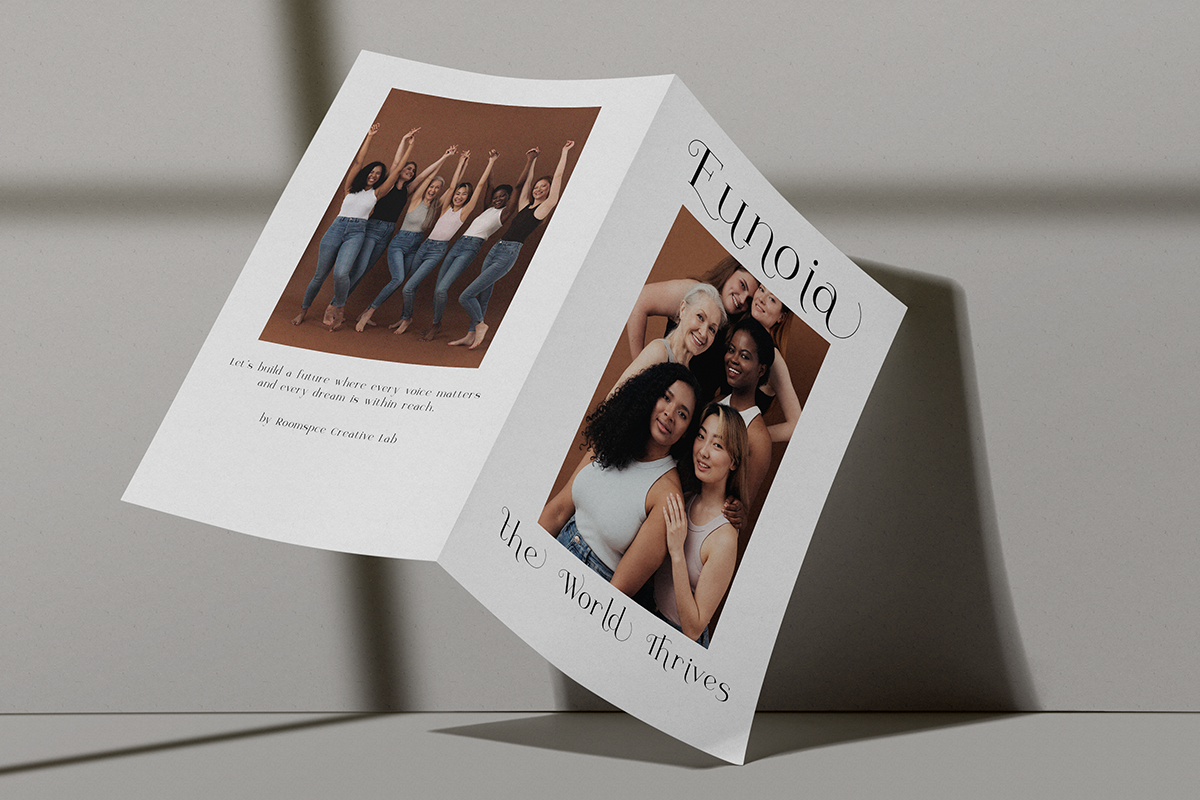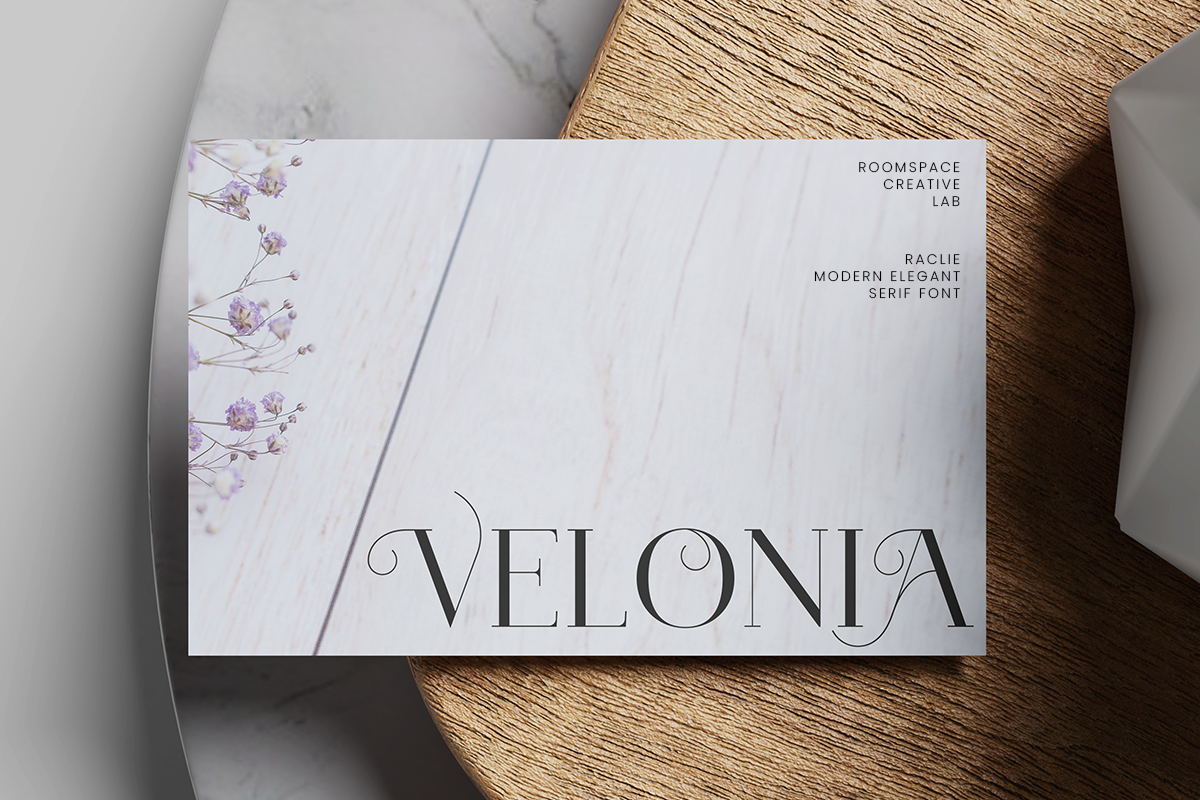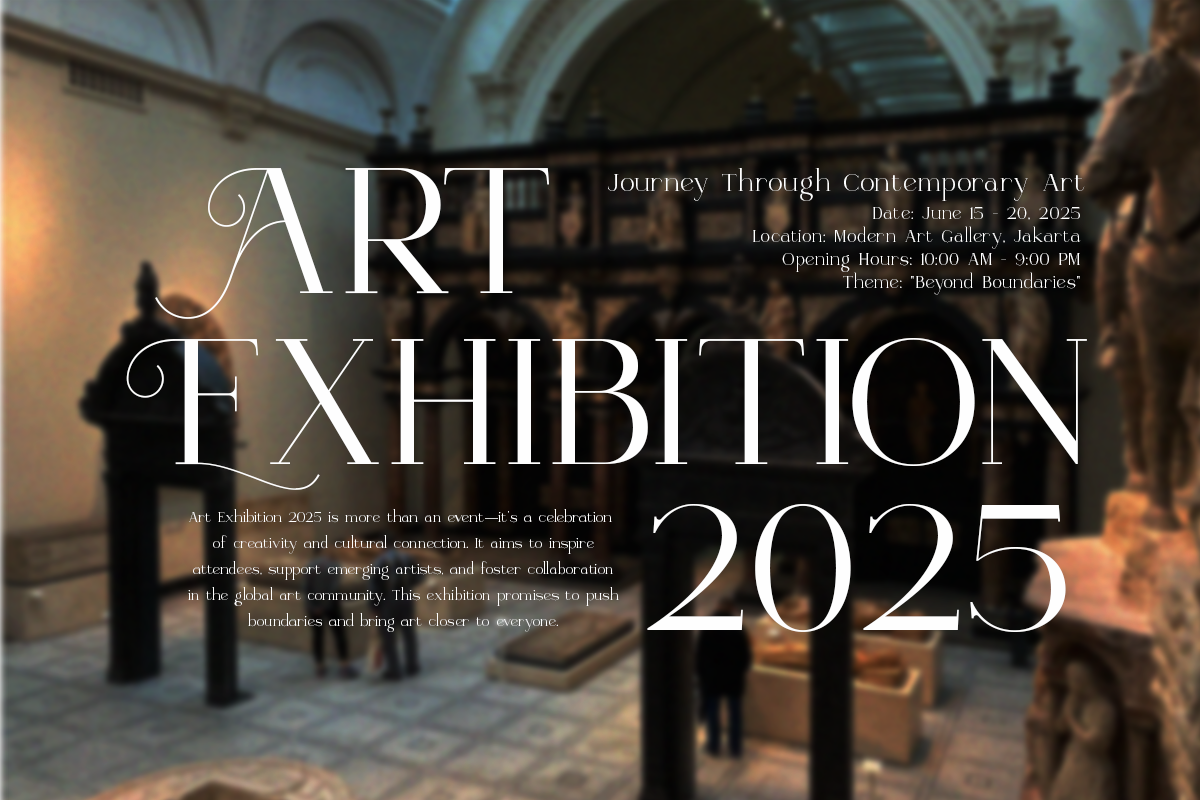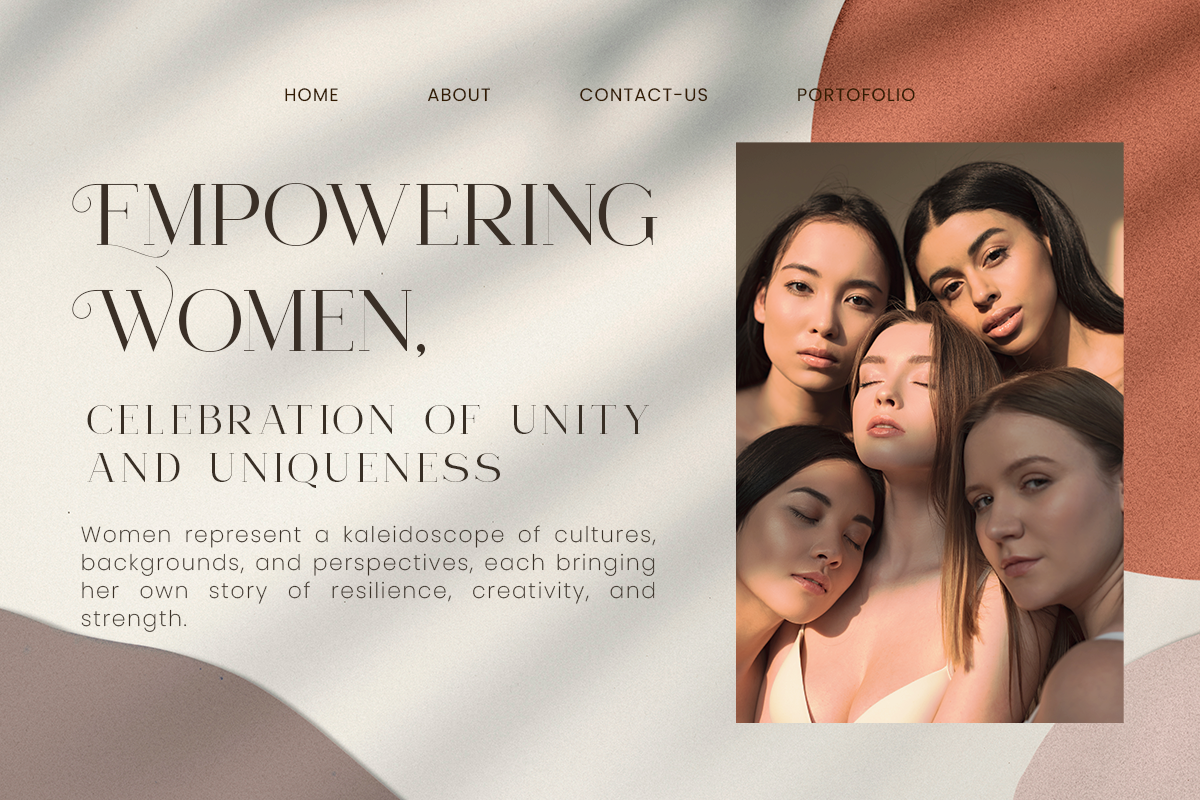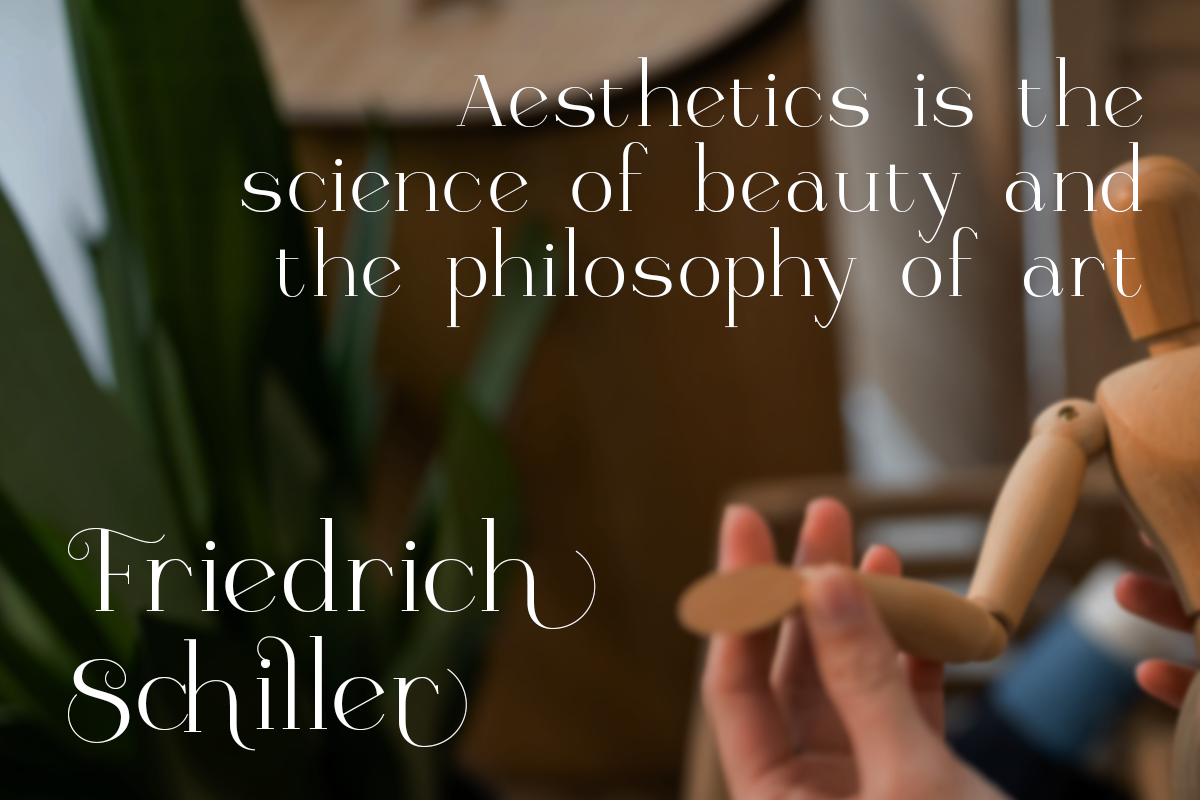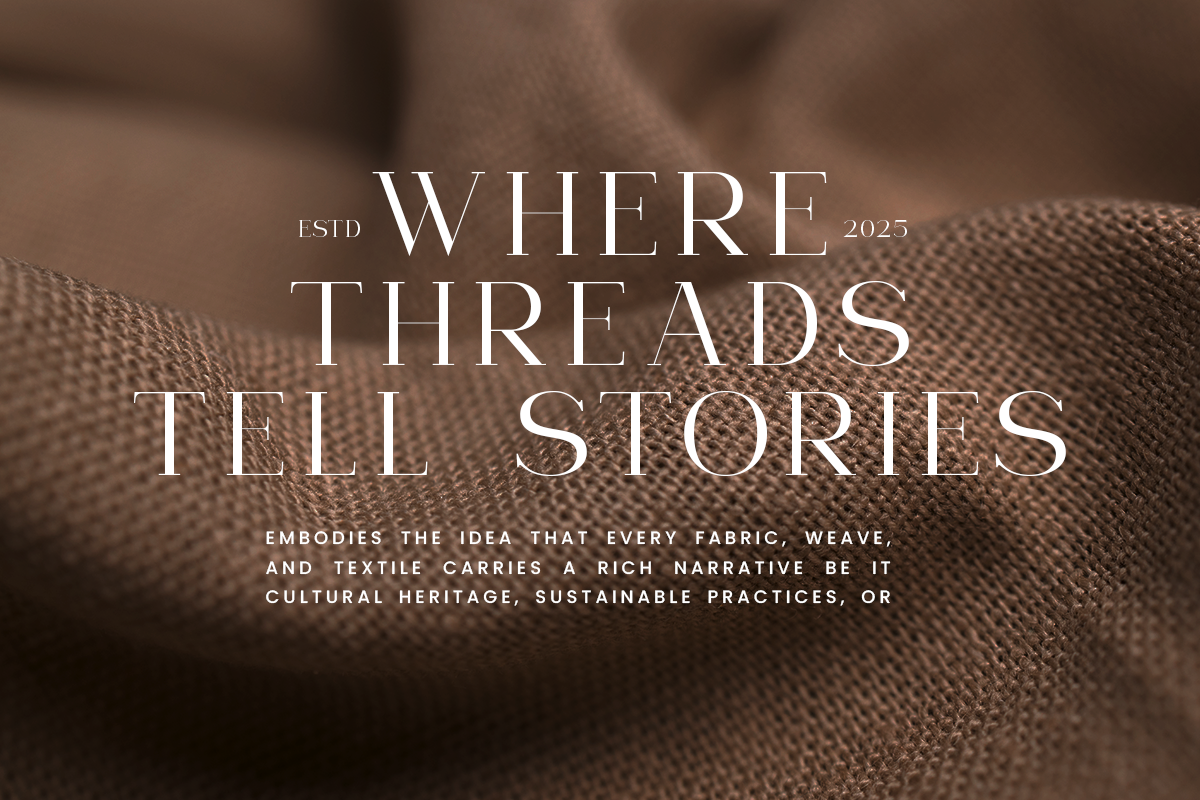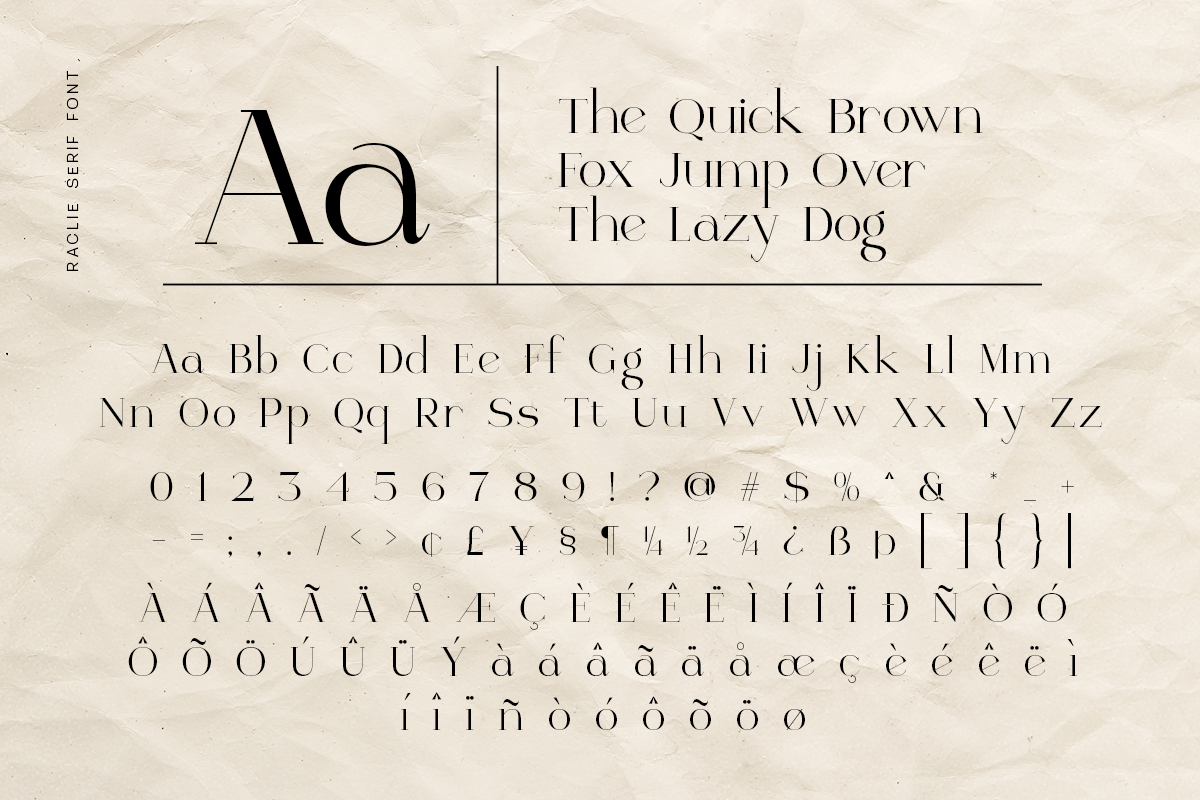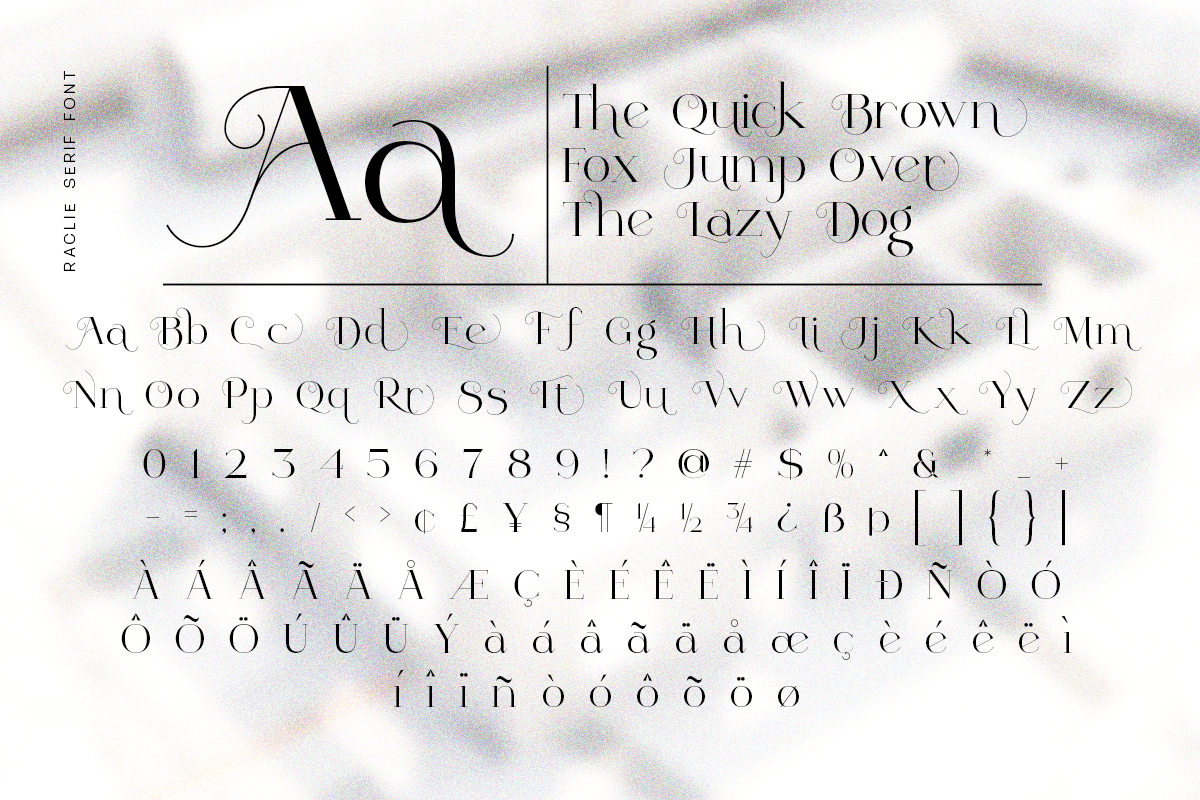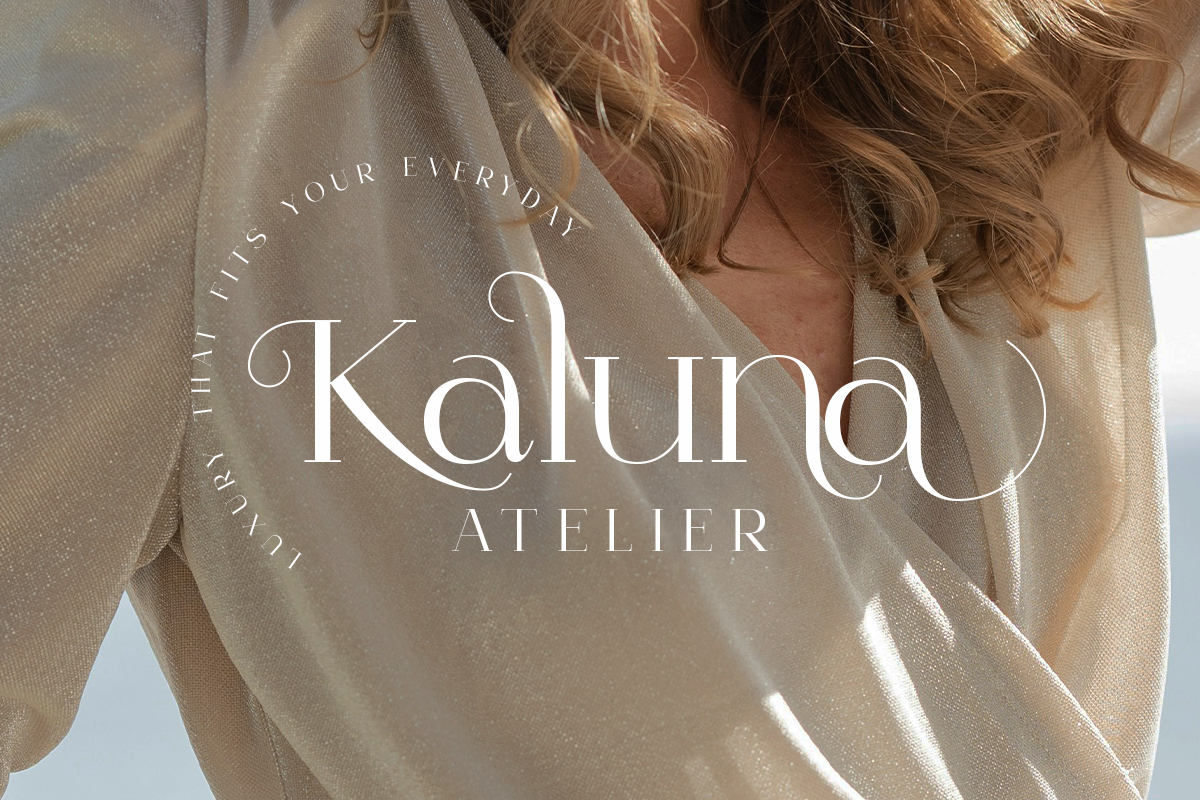
Elegant Modern Aesthetic - Raclie
Raclie, a timeless elegant serif font designed to exude luxury and sophistication. Perfectly crafted for wedding invitations, high-end branding, and any project seeking a refined touch, Raclie offers a variety of unique alternate characters, seamlessly blending creativity with consistency. Its graceful details and modern aesthetic make it the ideal choice for designers and brands looking to make a lasting impression.
Whether you're crafting a bespoke logo, designing editorial layouts, or creating printed invitations, Raclie elevates your project with effortless elegance and charm. Unlock its full potential and bring your vision to life.
FEATURE:
- Serif with a Modern, Luxurious Appeal
- Perfect for Logos, Branding, and Editorial Design
- Combines Modern Elegance with Contemporary Style
- Multilingual Support, numerals and punctuation